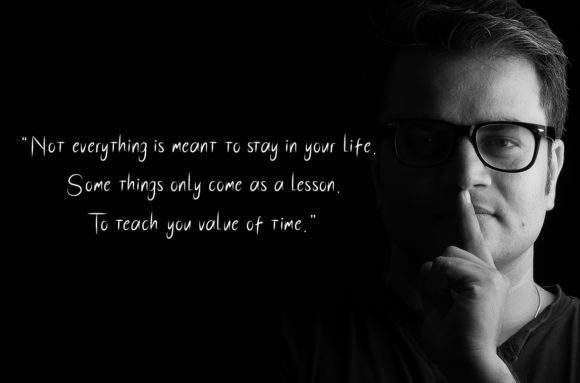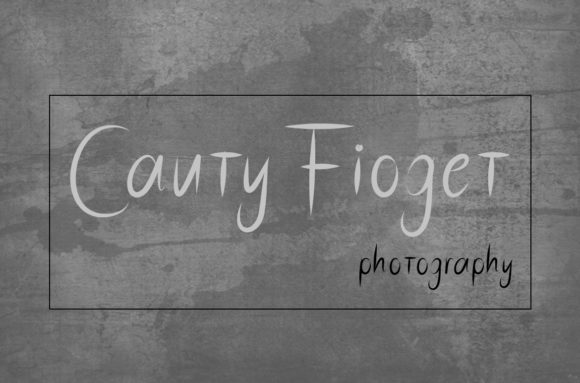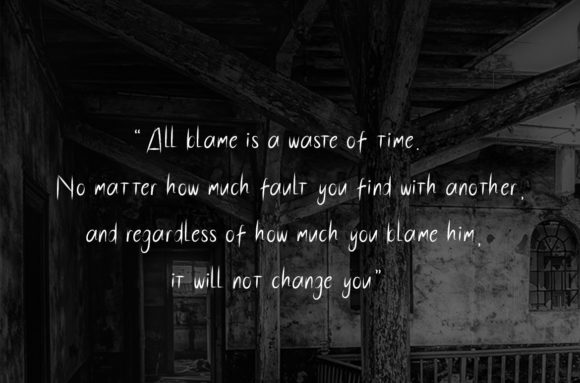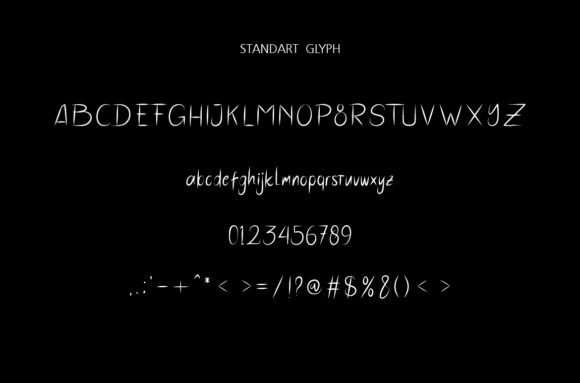
Unleash Your Creativity with Hair Styles Font: A Fun and Edgy Sans Serif
Are you tired of using the same old fonts in your designs? Look no further than Hair Styles Font, a fun and cool sans serif font that’s sure to add a rough edge to your creations. With its raw and authentic nature, this font is perfect for designers and crafters who want to add a touch of personality to their work.
The Story Behind Hair Styles Font
Hair Styles Font is a sans serif font that’s designed to evoke the feeling of rough, edgy hairstyles. Its unique design is inspired by the imperfections and irregularities of hand-drawn fonts, giving it a distinctly raw and authentic feel. Whether you’re designing a logo, creating a craft project, or simply looking for a new font to add to your arsenal, Hair Styles Font is sure to inspire.
Key Features of Hair Styles Font
- Raw and Authentic Nature: Hair Styles Font has a distinctly raw and authentic feel, thanks to its rough, edgy design.
- Sans Serif Design: This font features a clean, sans serif design that’s perfect for creating modern, edgy designs.
- Fun and Cool: Hair Styles Font is a fun and cool font that’s sure to add a touch of personality to your designs.
- Perfect for Designers and Crafters: Whether you’re a professional designer or a crafty DIY enthusiast, Hair Styles Font is the perfect addition to your font collection.
Uses for Hair Styles Font
Hair Styles Font is a versatile font that can be used in a variety of design projects, including:
- Logo Design: Add a touch of edginess to your logo with Hair Styles Font.
- Craft Projects: Use Hair Styles Font to add a personal touch to your craft projects, such as handmade cards, scrapbooking, and more.
- Social Media Graphics: Add some personality to your social media graphics with Hair Styles Font.
- Advertising: Use Hair Styles Font to create eye-catching ads that stand out from the crowd.
Tips for Using Hair Styles Font
Here are a few tips for getting the most out of Hair Styles Font:
- Experiment with Different Sizes: Hair Styles Font looks great in a variety of sizes, from small and subtle to large and bold.
- Pair with Other Fonts: Try pairing Hair Styles Font with other fonts to create a unique and eye-catching design.
- Use in Combination with Images: Hair Styles Font looks great when used in combination with images, especially those with a rough or edgy texture.
If you’re looking for a fun and cool sans serif font with a rough edge, look no further than Hair Styles Font. With its raw and authentic nature, this font is perfect for designers and crafters who want to add a touch of personality to their work. Whether you’re designing a logo, creating a craft project, or simply looking for a new font to add to your arsenal, Hair Styles Font is sure to inspire.